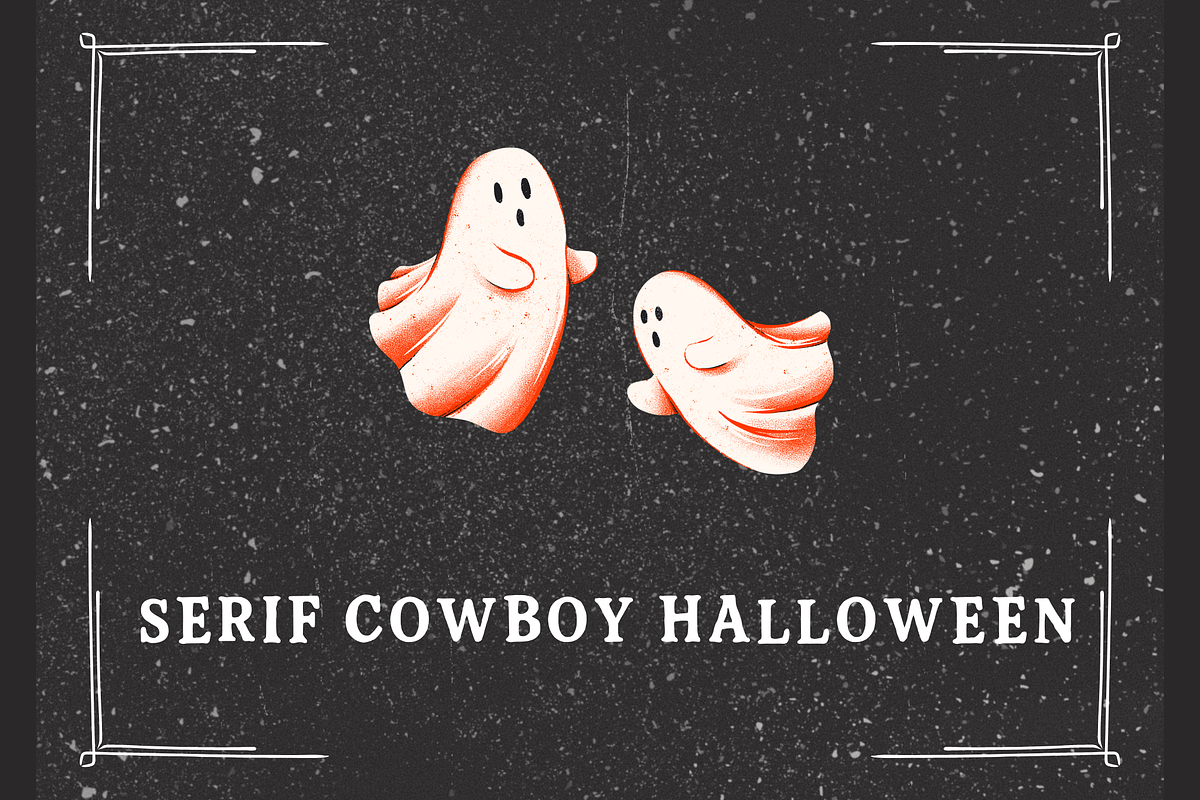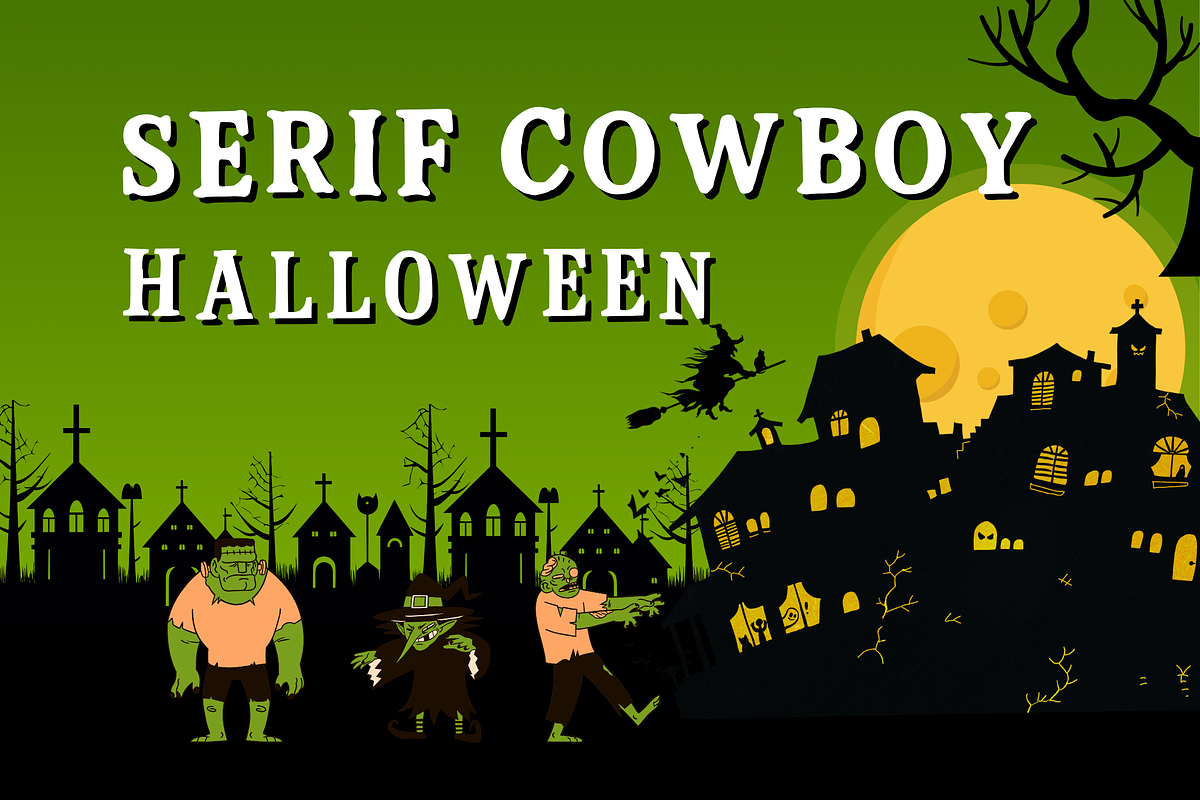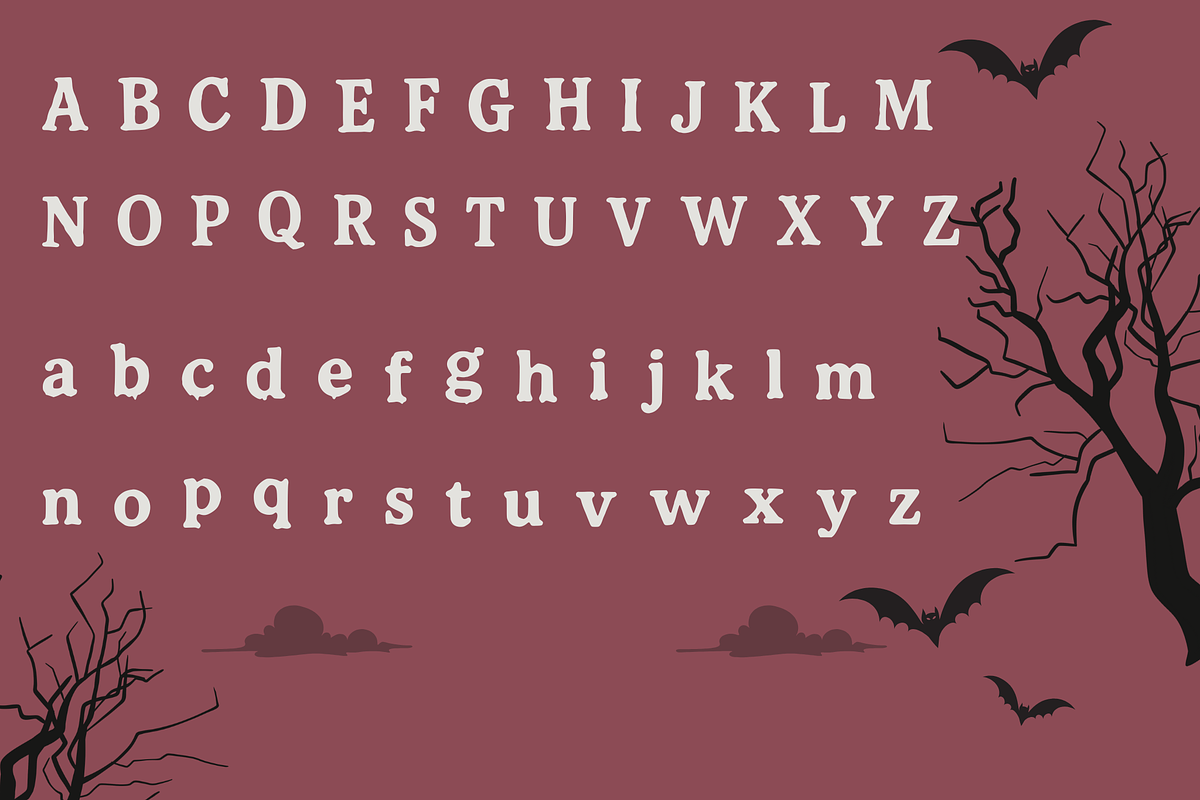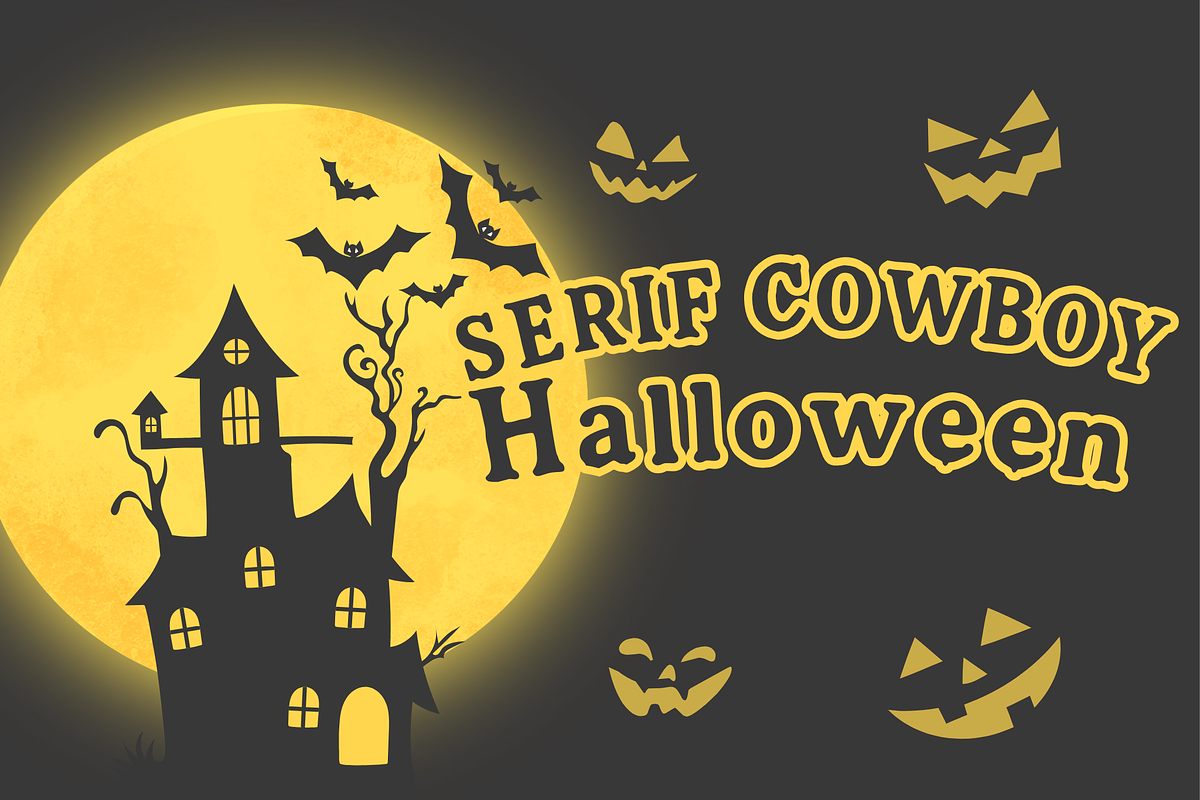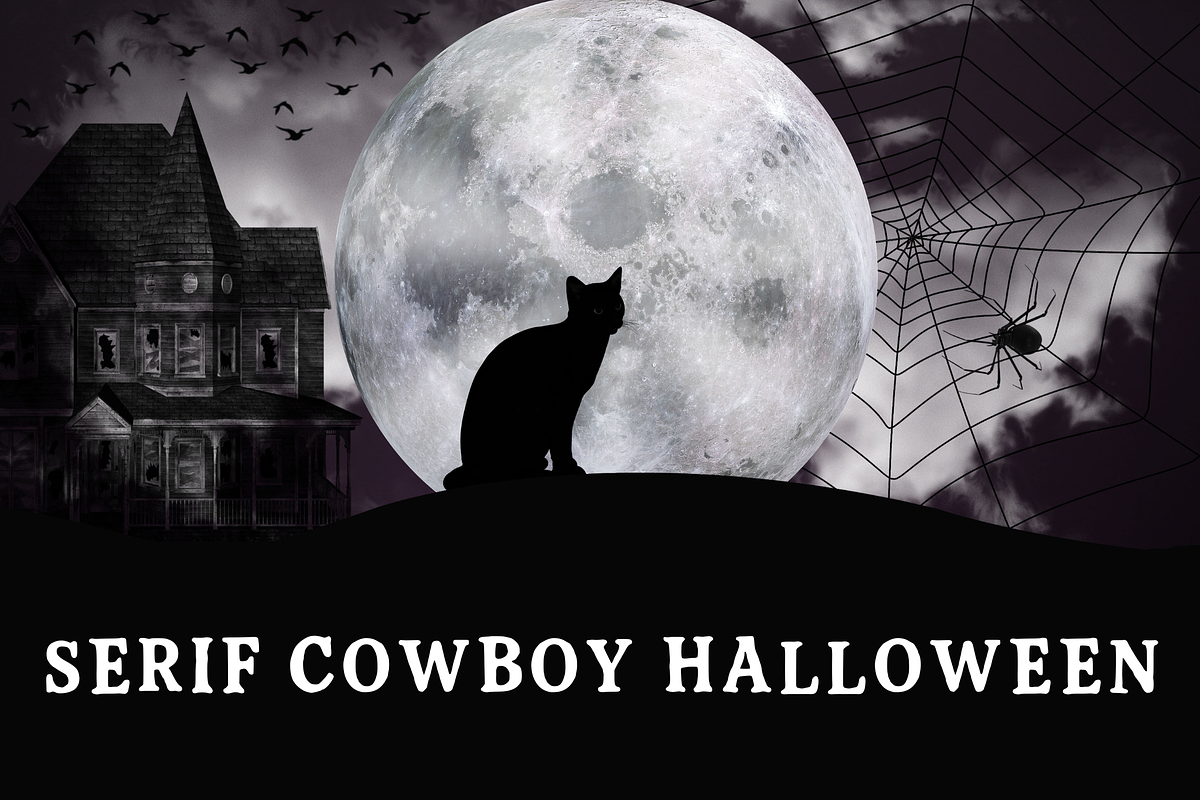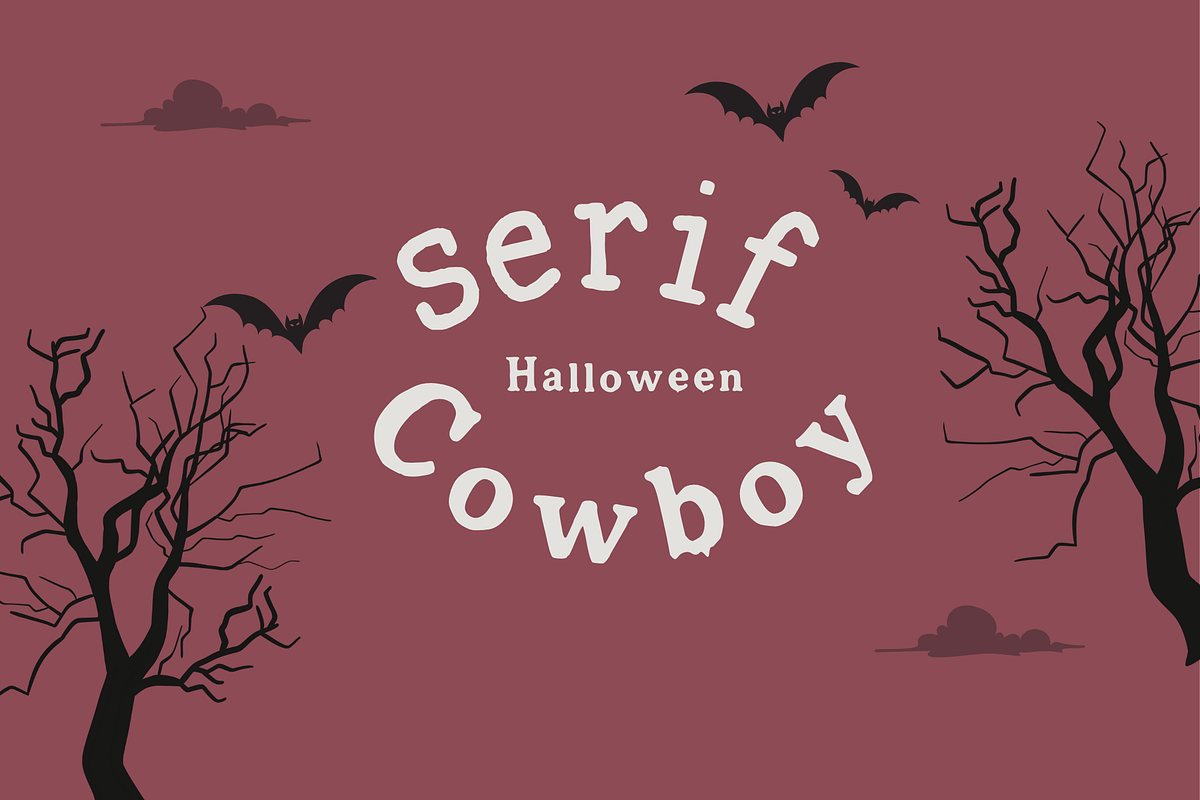
Serif Cowboy Halloween Spooky Wester
Get ready to add a wild, spooky touch to your digital projects with Serif Cowboy Halloween! Perfect for Halloween invitations, posters, social media graphics, website headings, and digital scrapbooking. This versatile design works seamlessly for both personal and commercial projects, making your designs stand out with a unique western Halloween vibe. Ideal for web banners, greeting cards, branding, merchandise mockups, and more. Make your creative projects unforgettable this Halloween season!